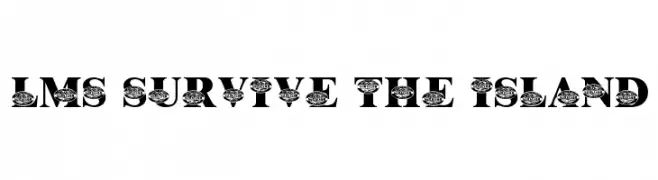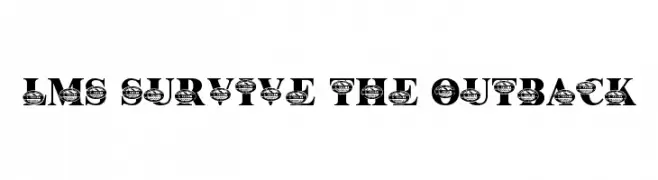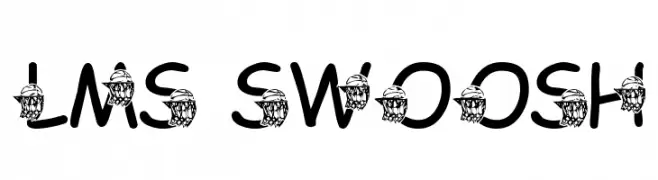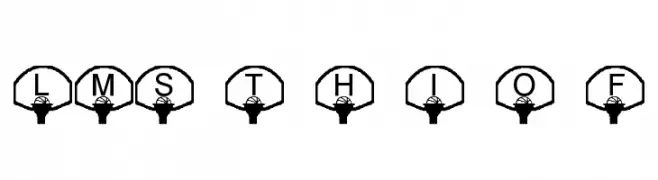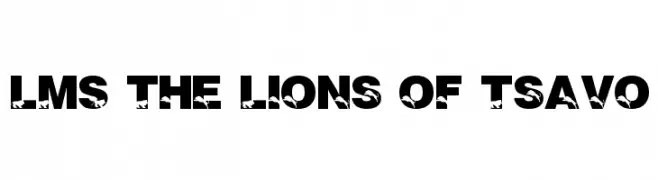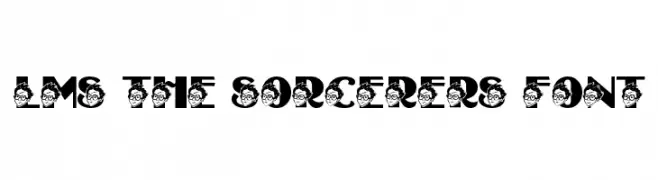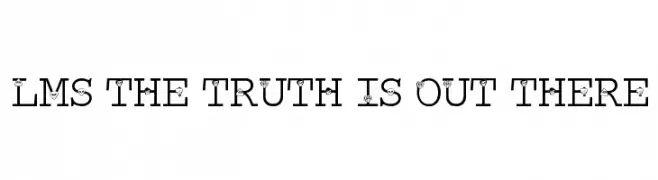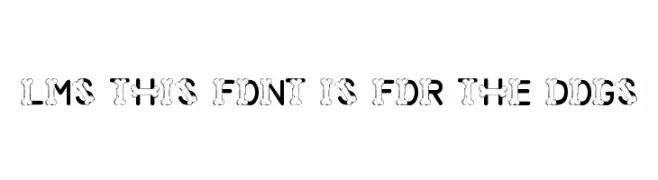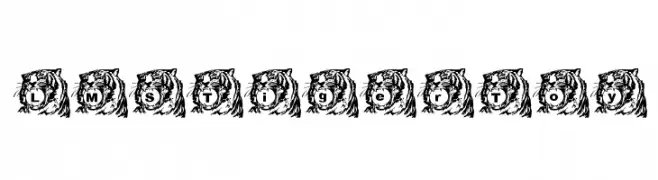
A bold, decorative font with tribal-inspired embellishments.
A bold, decorative font with intricate patterns, ideal for striking designs.
A bold, basketball-themed decorative font with dynamic swoosh elements.
A playful font with letters inside basketball hoops, perfect for sports themes.
A bold, decorative font with integrated lion silhouettes in each letter.
A playful, character-filled font with a whimsical, magical theme.
A playful serif font with alien-themed decorative elements.
A playful font with bone-shaped characters, perfect for pet-themed designs.
A decorative font with characters encased in tiger illustrations, offering a wild and artistic style.
A bold, decorative font with toy soldier motifs embedded in each letter.